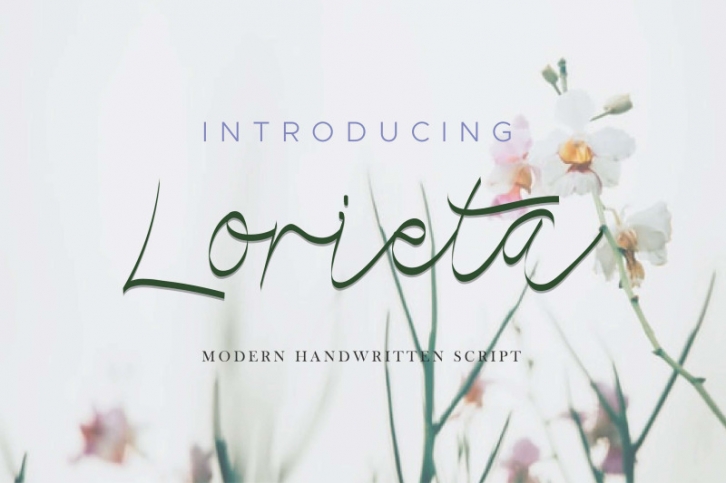
Please meet our newest font : Lorieta
This is a new handwritinf script font with natural handcrafted glyphs .  On the package You will get :
It also support multilangguage glyphs